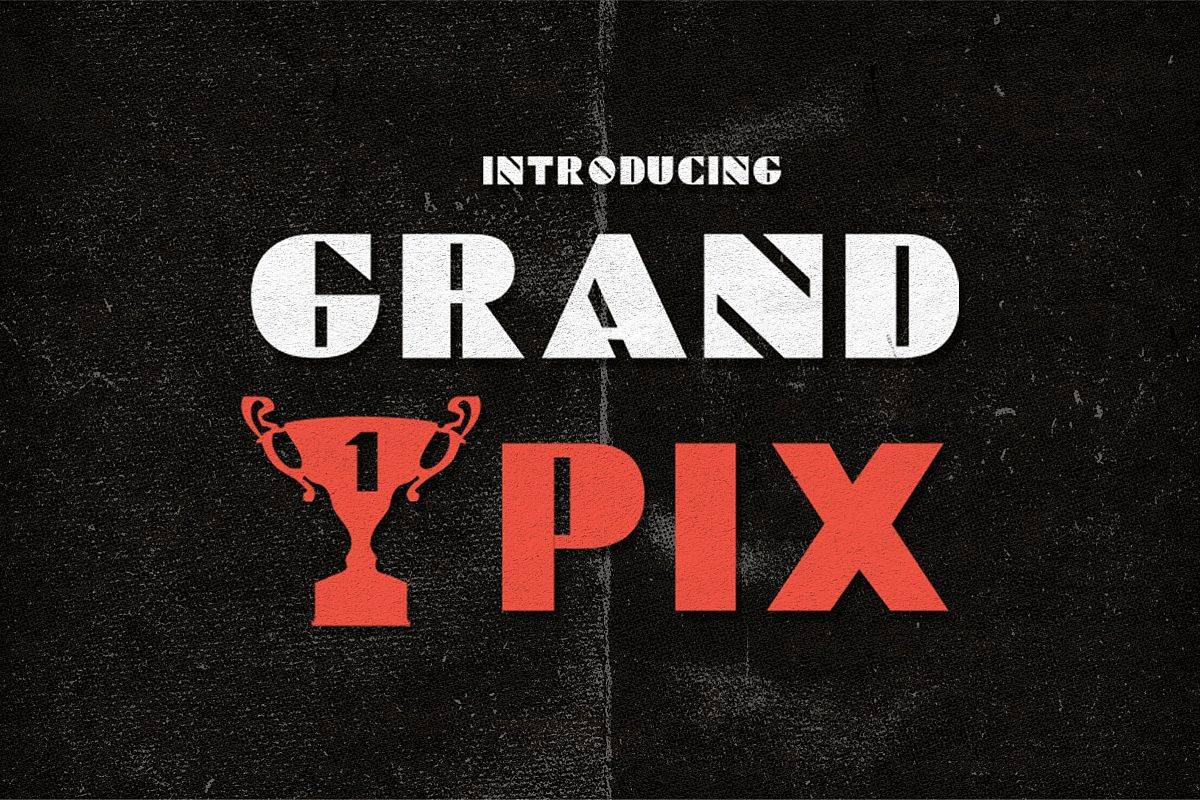
Grand Pix Font
Grand Pix
Grandpix font, idea come from car competition, and concept font and road, verry bold and strong. good for any automotive related business,include grandpix font.otf and grandpix font.ttf